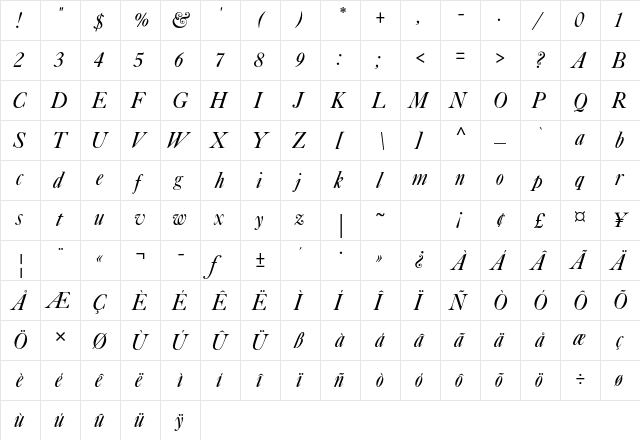
Caslon Italic with Swashes Std Regular
| Designer | Freda Sack |
Design Context for Caslon Italic with Swashes Std Typeface
Caslon Italic with Swashes Std brings a calligraphic fluidity to the page — its connecting strokes and expressive curves give it an unmistakably human quality.
Font Pairing: Combine Caslon Italic with Swashes Std with a simple geometric sans for maximum contrast — the tension between flowing curves and clean structure is a classic typographic pairing.
Pro Tip: Pair Caslon Italic with Swashes Std with a clean sans-serif for supporting text. The contrast between fluid script and geometric structure creates an elegant typographic hierarchy.